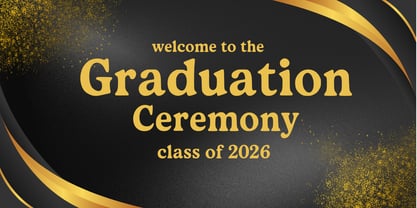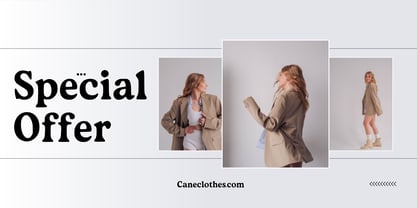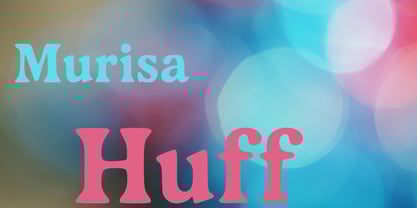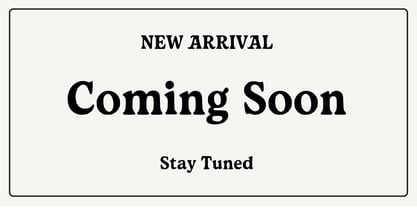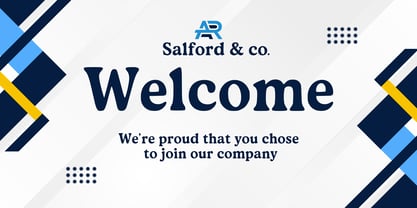
Murisa Huff
by Murisa Studio
The Murisa Huff Font Family was designed by Lili Sadili and published by Murisa Studio. Murisa Huff contains 2 styles and family package options.
Murisa Huff — Where Classic Elegance Meets Global Sophistication
Step into a world of timeless refinement with Murisa Huff, a bold serif typeface that commands attention without ever raising its voice. Designed for creators who demand both beauty and precision, this font blends classic proportions with subtly rounded contours, creating a visual rhythm that feels both stately and inviting.
💎 Distinguished by Design Murisa Huff is not just a font—it’s a statement. Each character is sculpted with meticulous care, balancing strength and softness in every curve. The bold weight adds gravitas to headlines, packaging, and editorial layouts, while the italic style introduces a graceful contrast perfect for emphasis and storytelling.
🌍 Crafted for Global Reach With full support for Eastern European languages, Murisa Huff speaks fluently across borders. Whether you're designing for luxury brands in Prague, cultural institutions in Budapest, or fashion houses in Warsaw, this typeface adapts effortlessly to multilingual demands.
🖋️ Versatility in Motion From high-end branding to refined print work, Murisa Huff thrives in environments where elegance is non-negotiable. Use it in product packaging, magazine spreads, or digital campaigns that require a touch of heritage with a modern twist.
Murisa Huff isn’t just a font—it’s the signature of excellence. Let your designs speak with authority, grace, and global sophistication